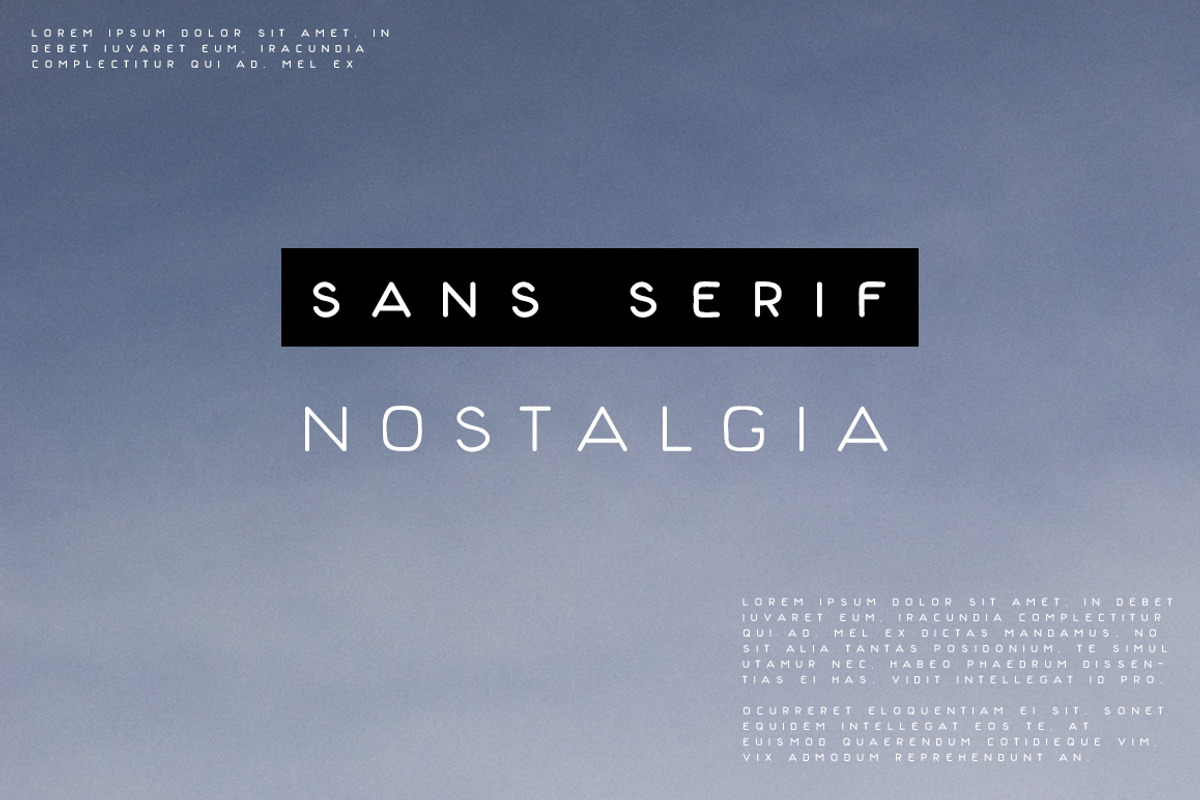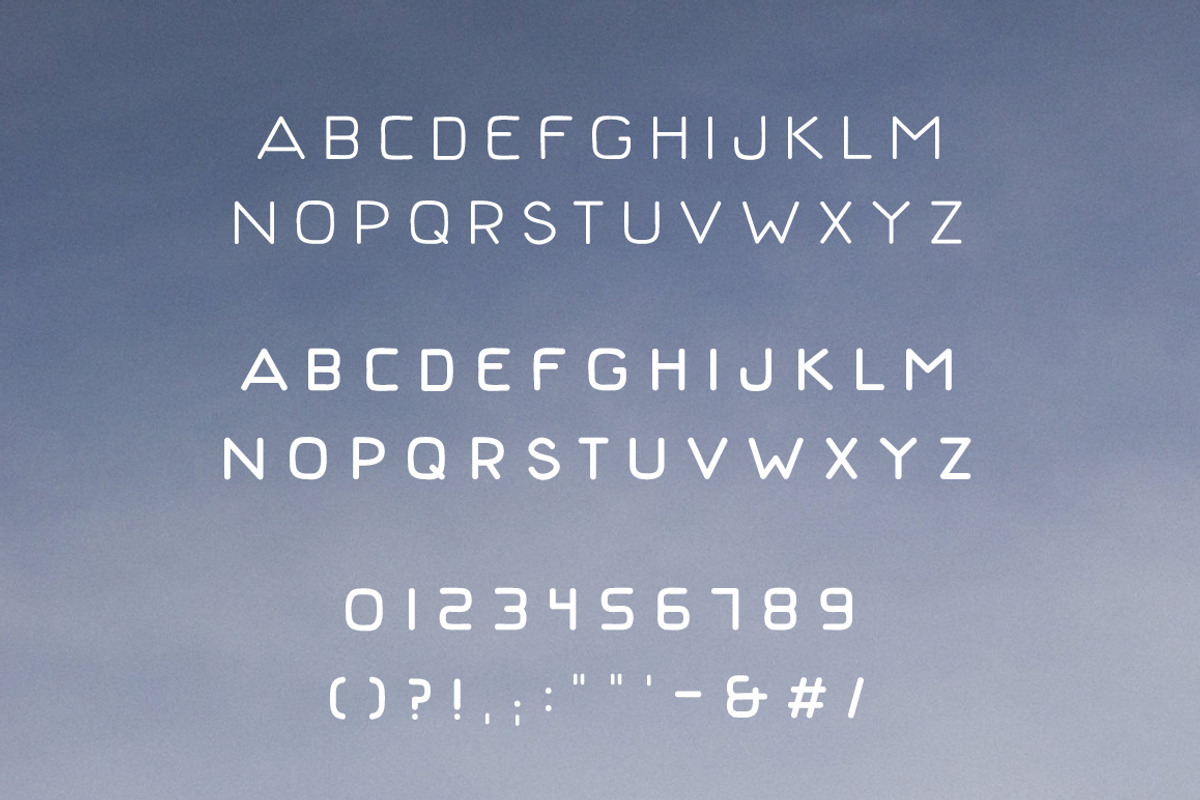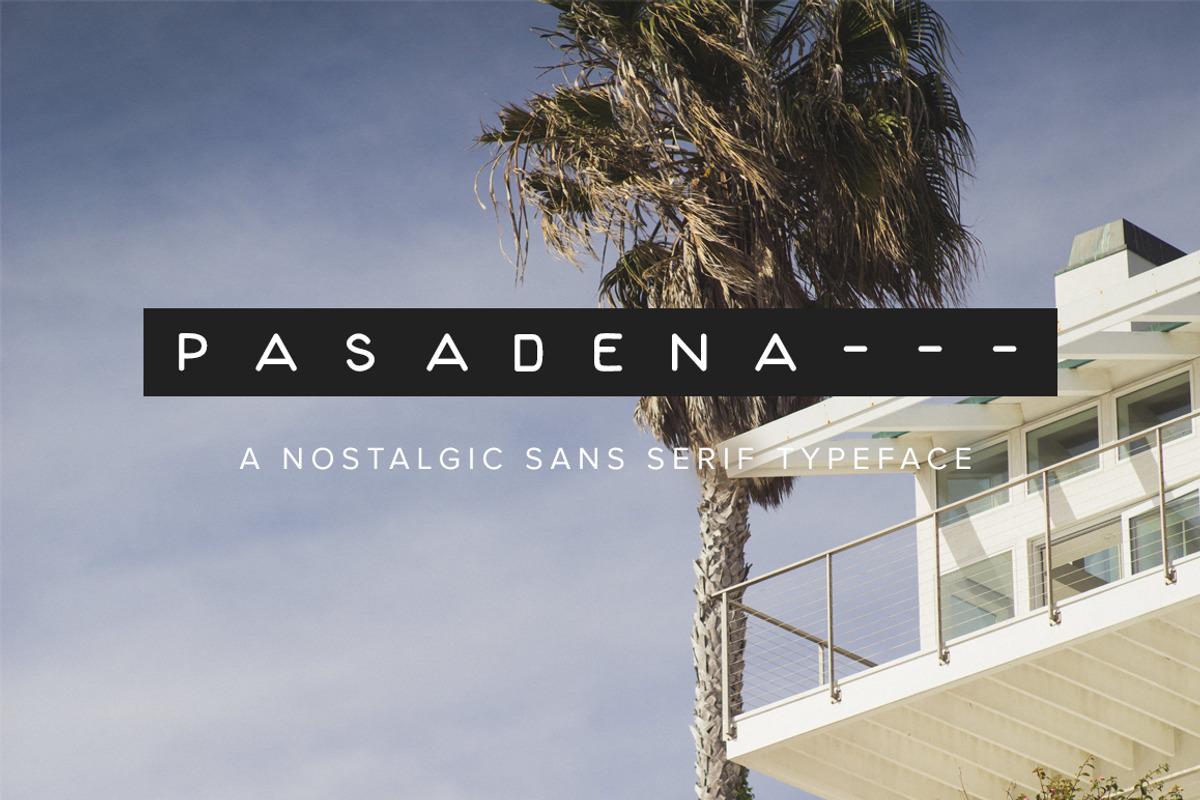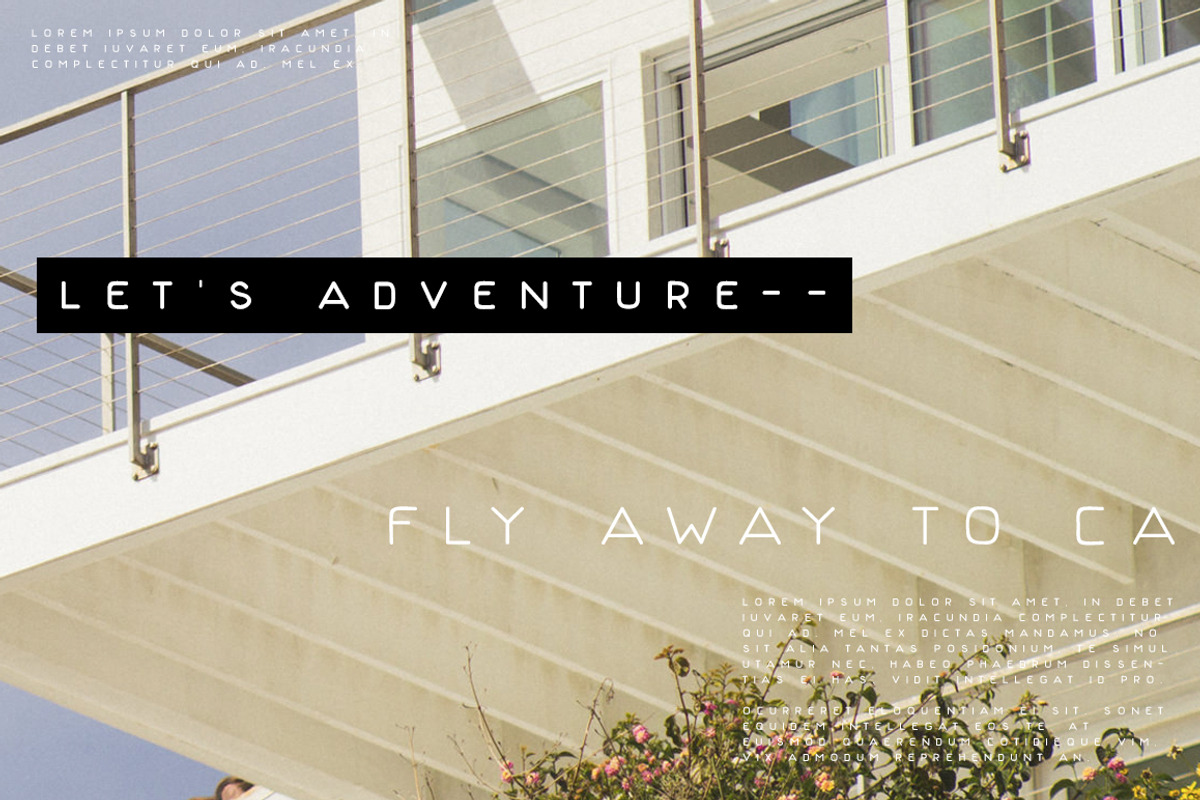
Pasadena | A Nostalgic Font
Pasadena is a nostalgic all-caps font inspired by the retro label makers we all played with as kids. This is a perfect font for making trendy headers, layouts, and other projects!
Includes
- two weights (light & regular)
- uppercase letters
- numbers & basic punctuation